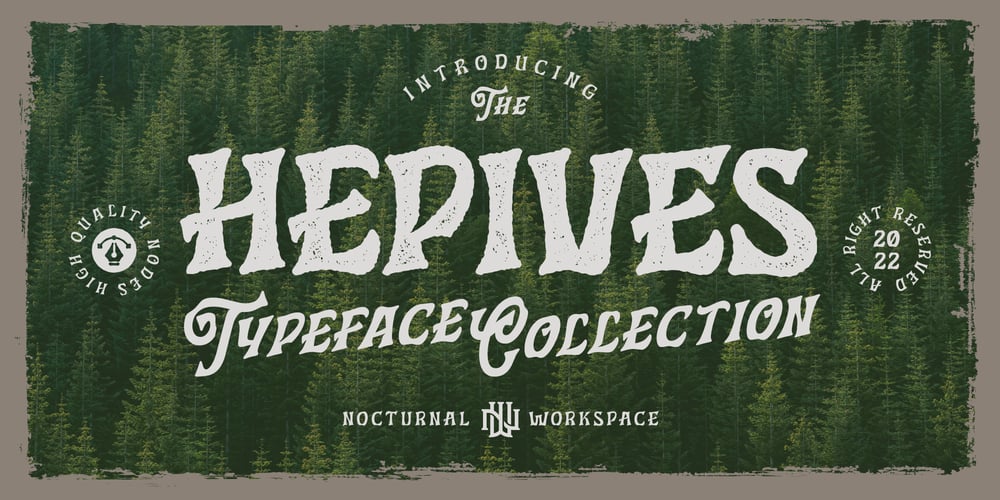
Hepives Font Family was designed by Farhan Tirta and published by Nocturnal Workspace. Hepives contains 5 styles and family package options. Hepives born to be a clothing trademark for the adventurous lover community. Initially we only made a typographic logo with the name “HEPIVES” then we developed it again into a font. inspired by old vintage denim labels, old clothes commercials, labels on 90s tapes.. Ideal for use in logos, flyers, invitations, labels, clothes and more.FEATURES Standard Ligature Stylistic Alternate Fraction, Numerator, Denominator Includes a range of multilingual characters. To improve the quality of use & enrich the font family, we always update the fonts that have been published. Feel free to give us suggestions.Thank you!